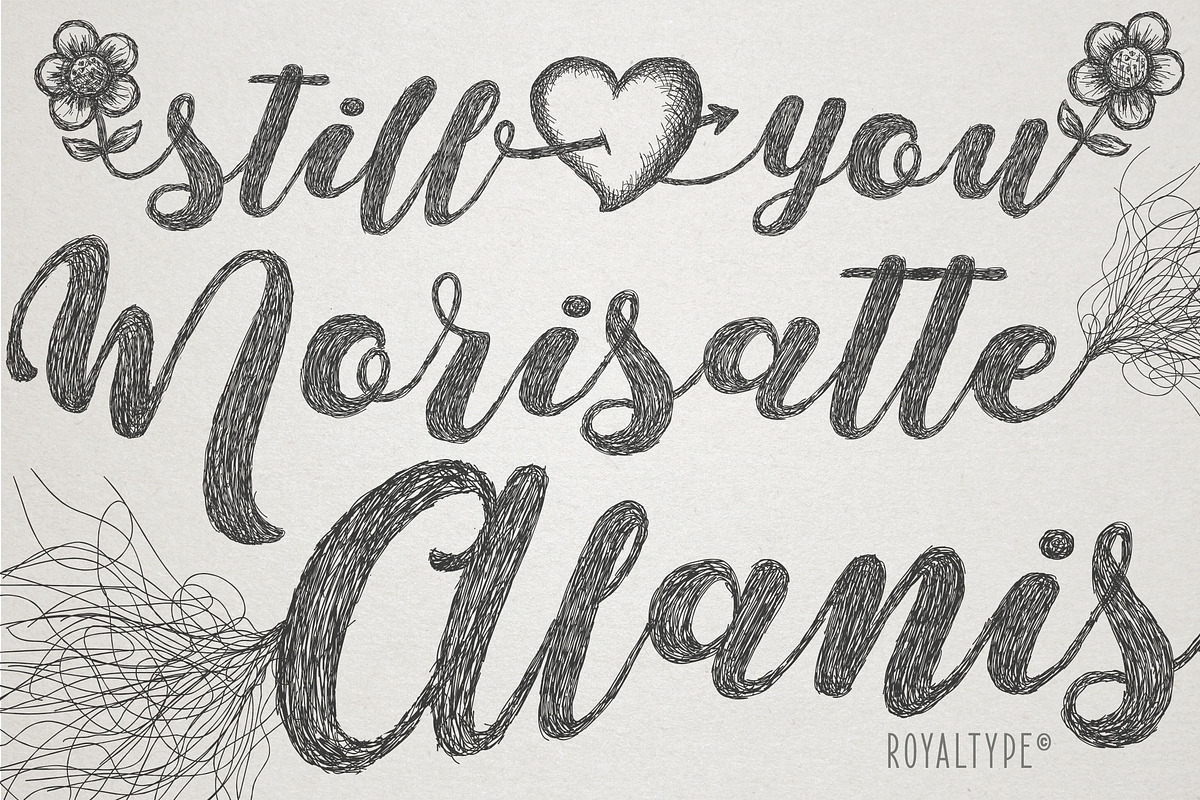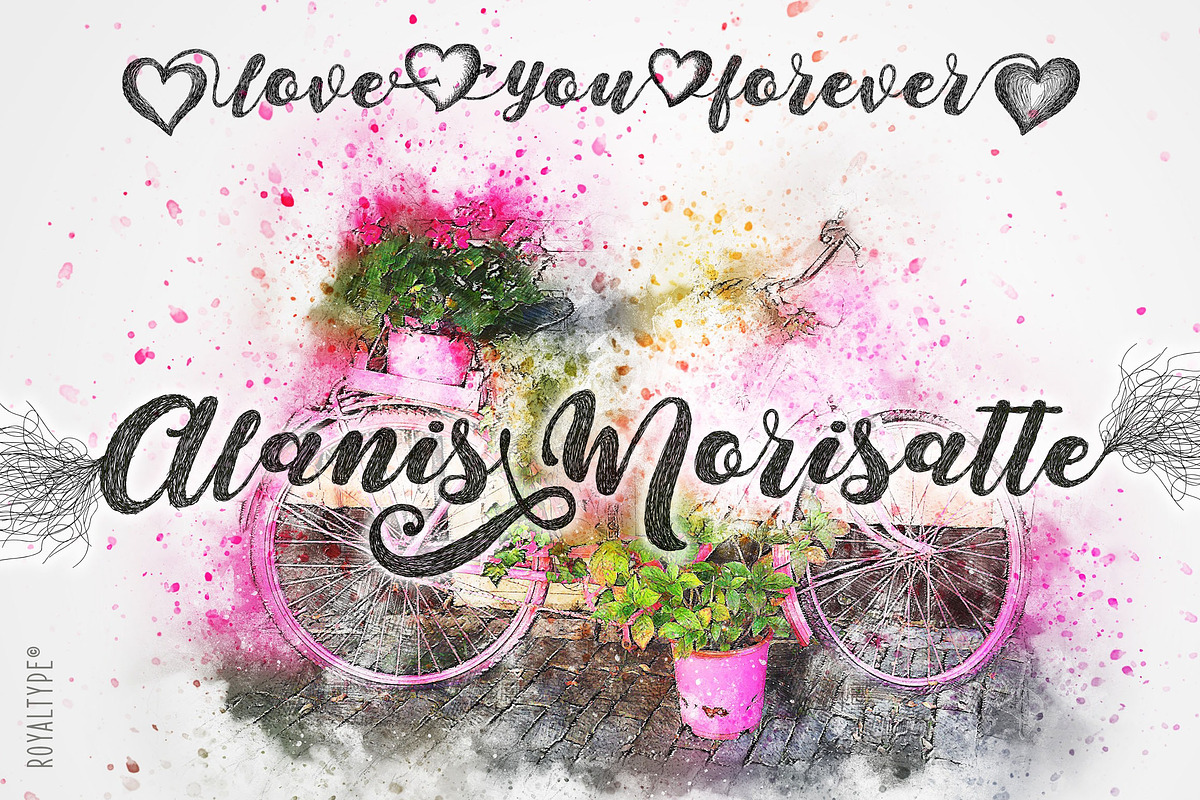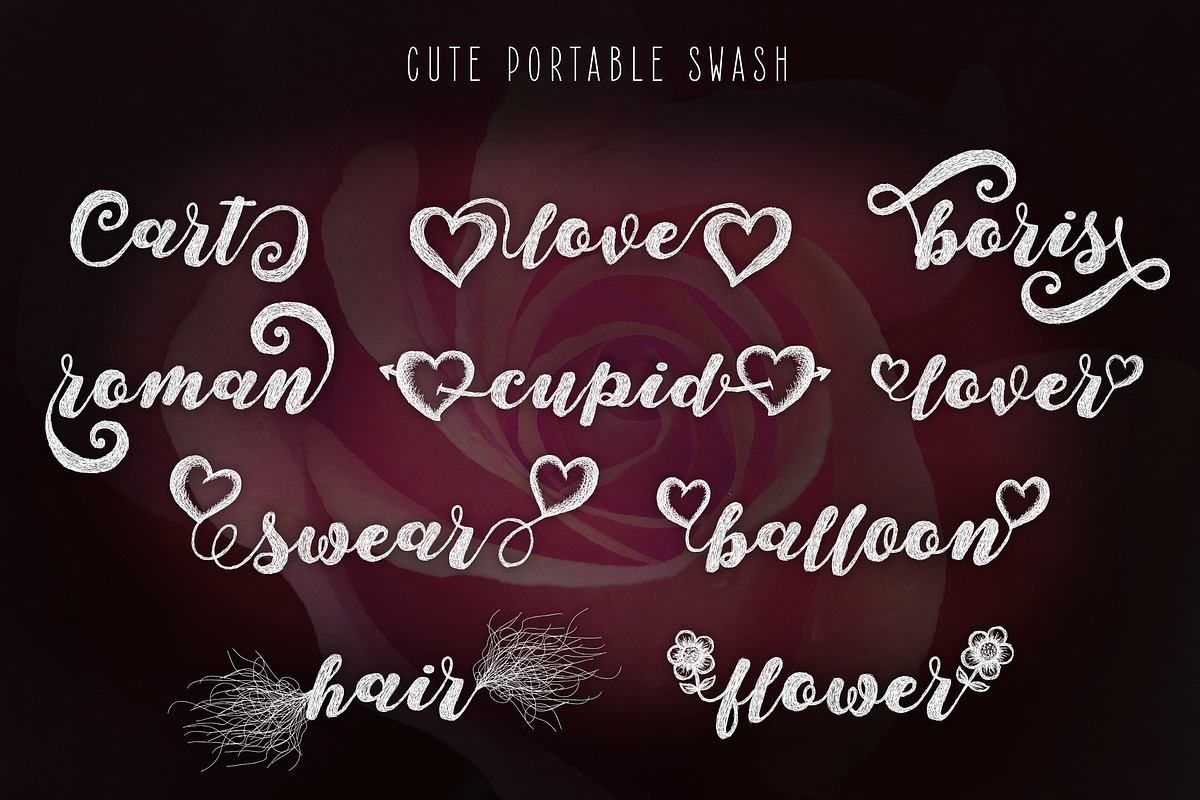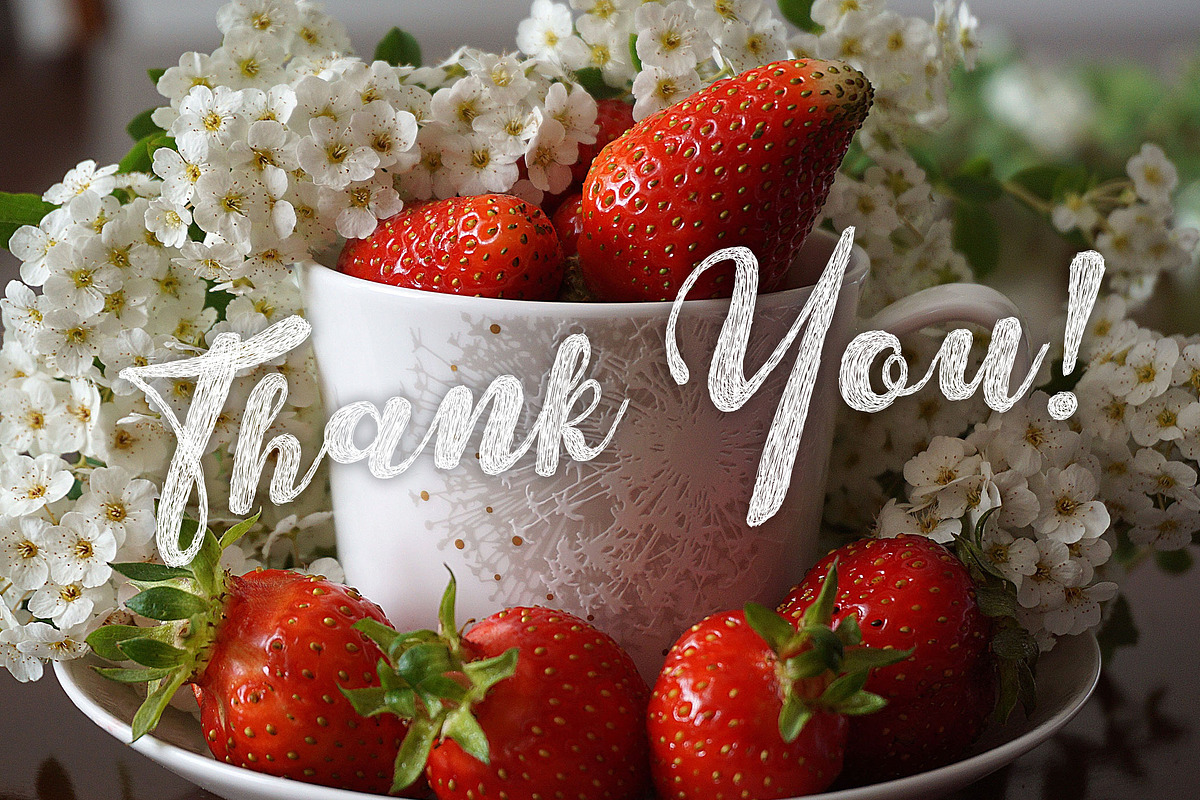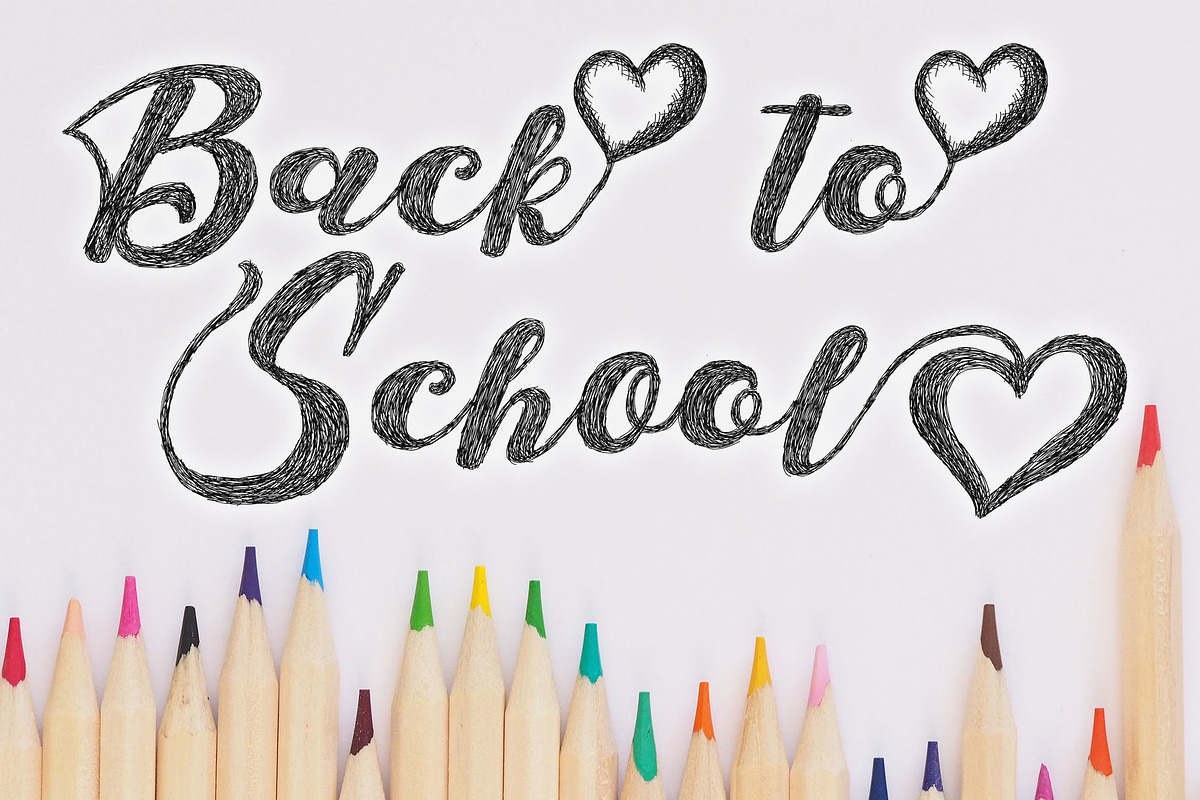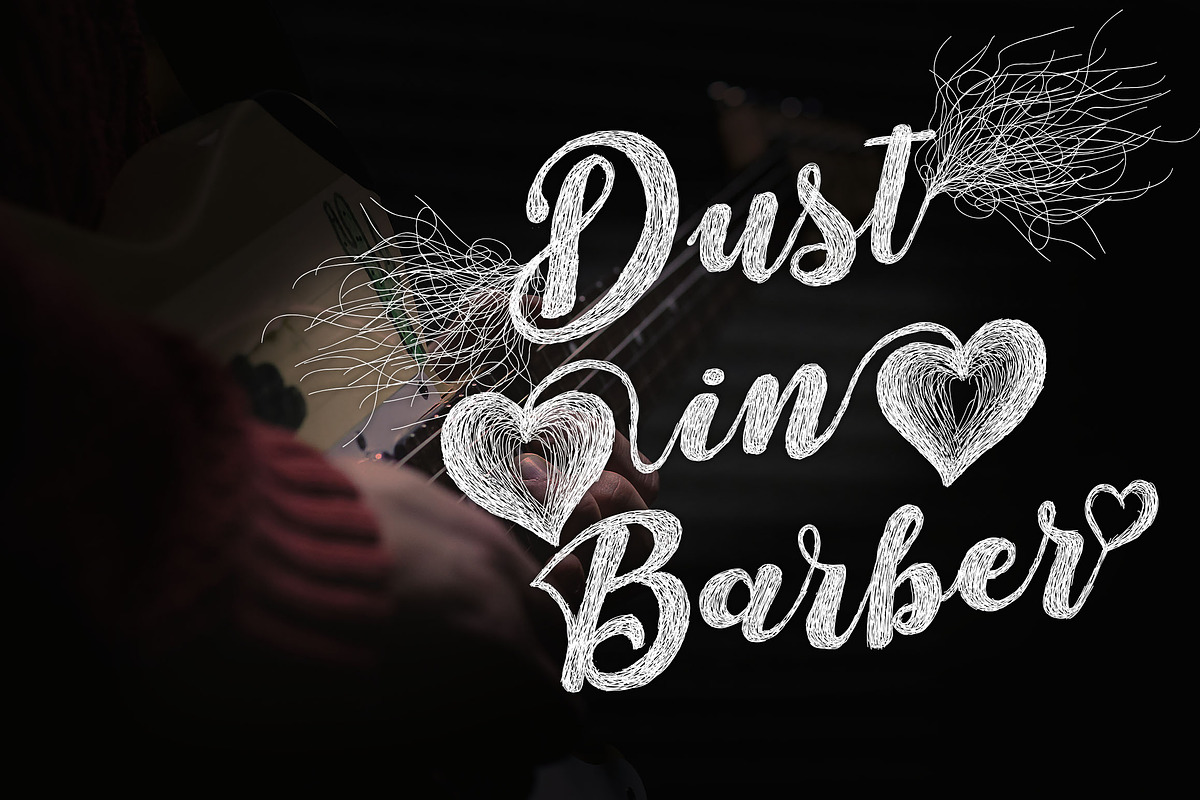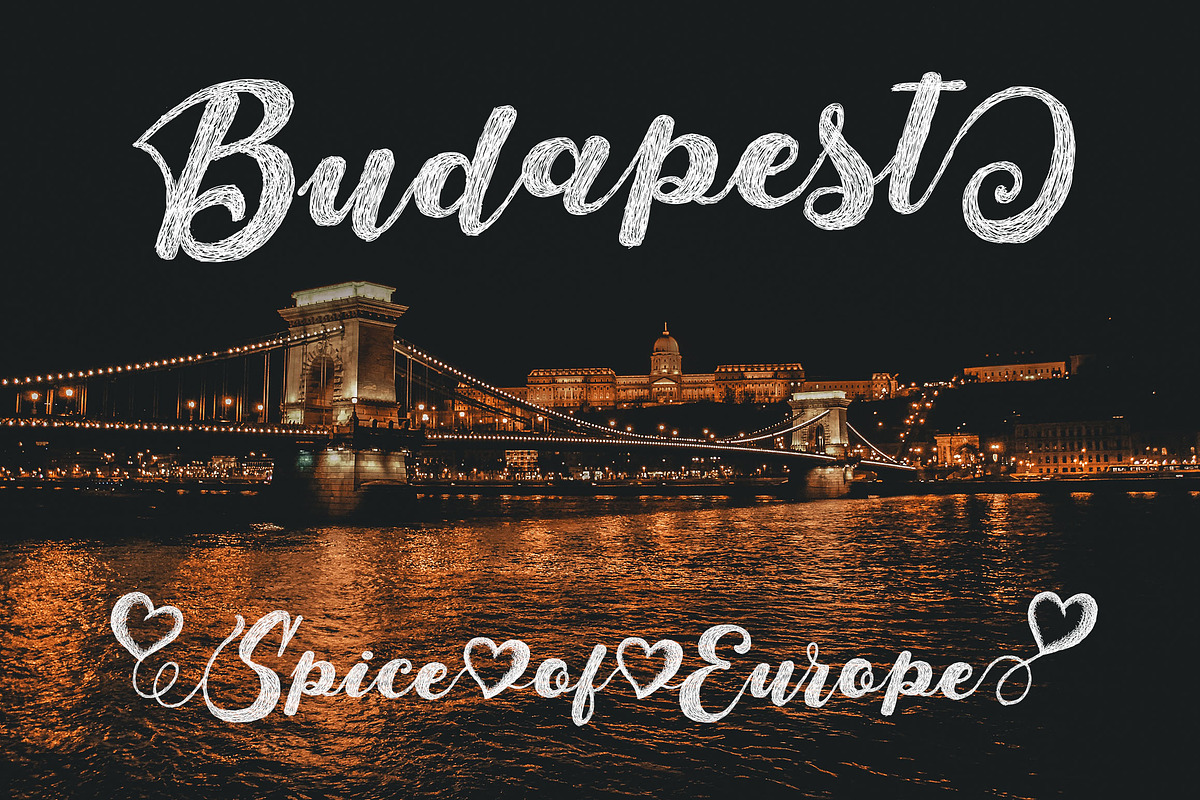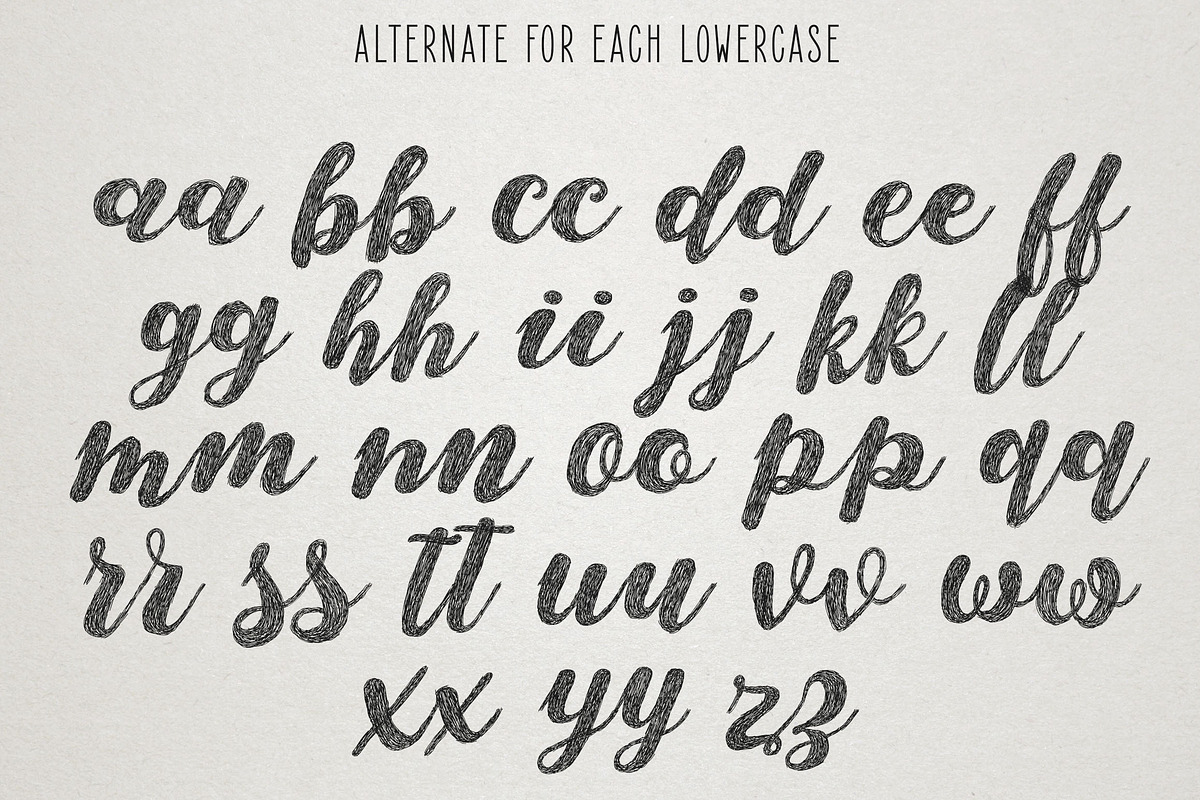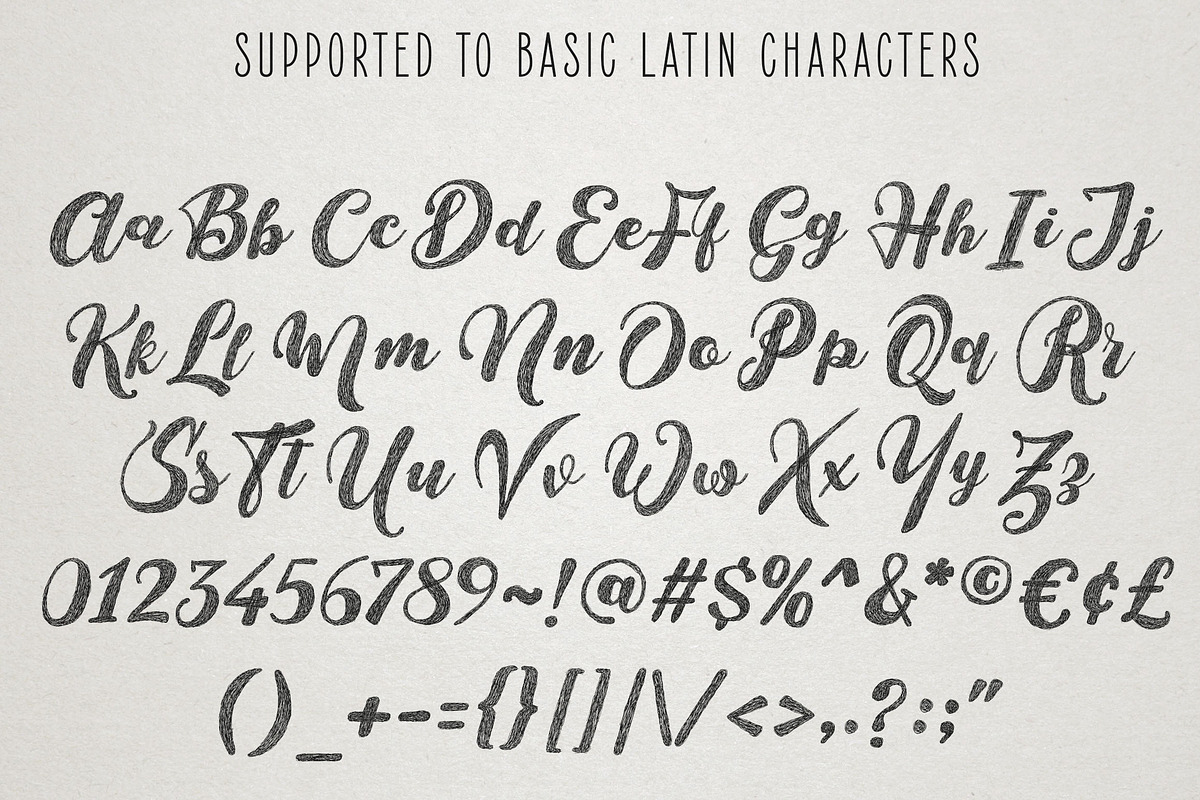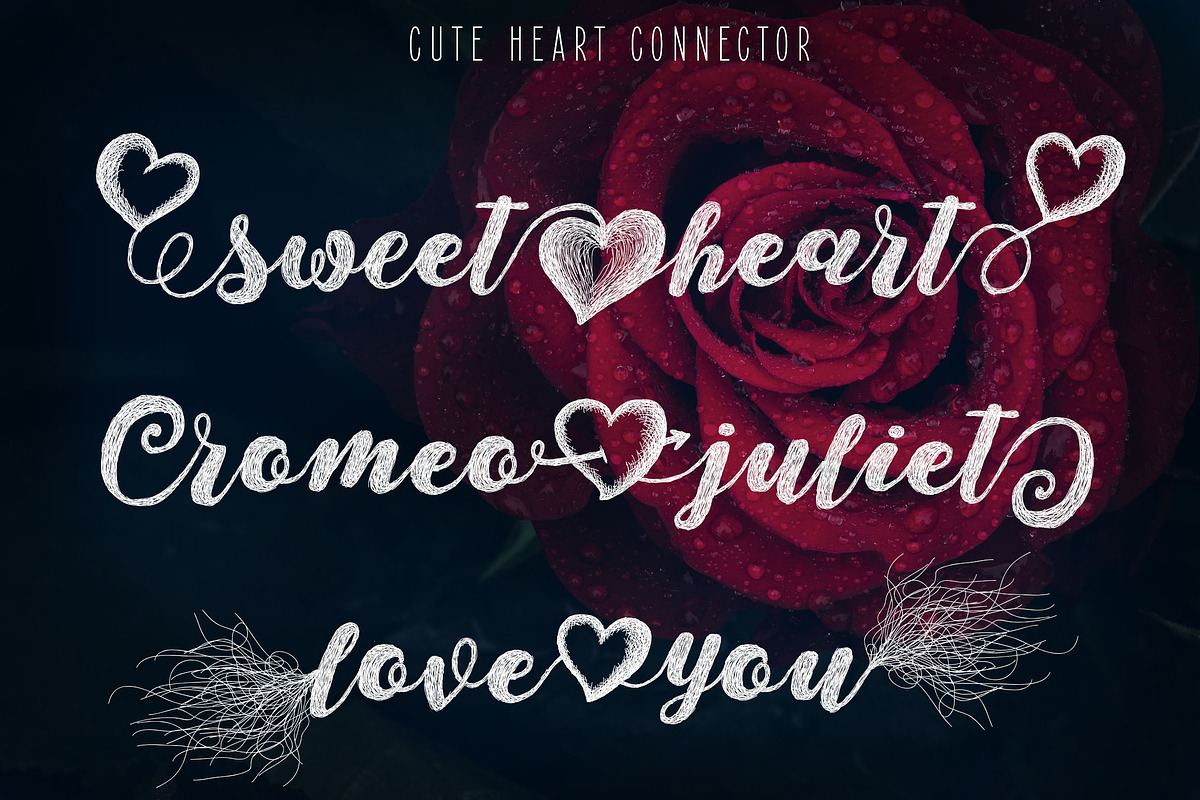
Monstere Script | Sketch Style
Introducing my new cool font, named as Monstere. This is sketch style of script, with lovely connector and swash. This font supported to basic Latin characters, will nice to use in wedding invitation card, valentine card, Youtube thumbnail tittle, subtitle, T-shirt, mug, lettering, etc. File: Monstere.ttf